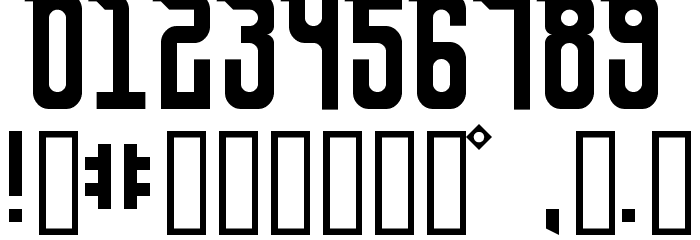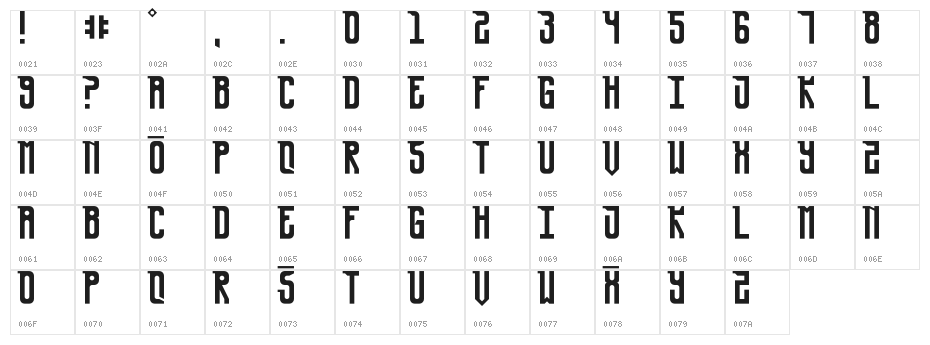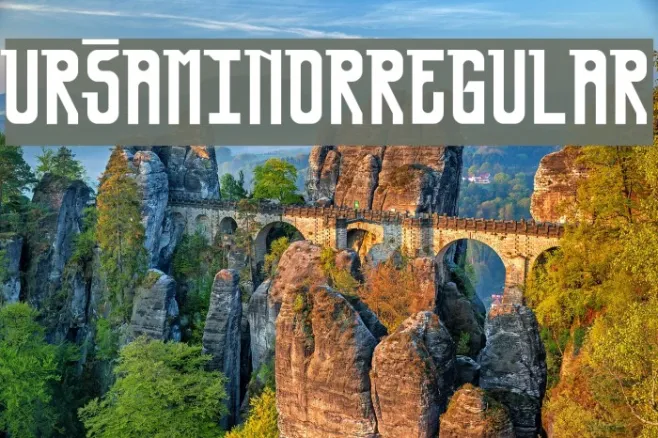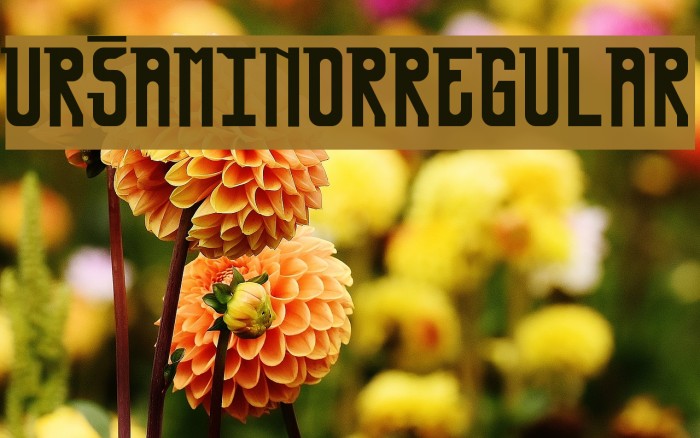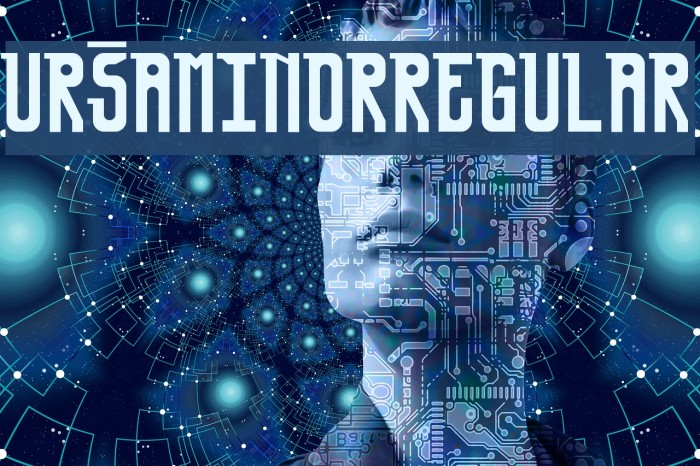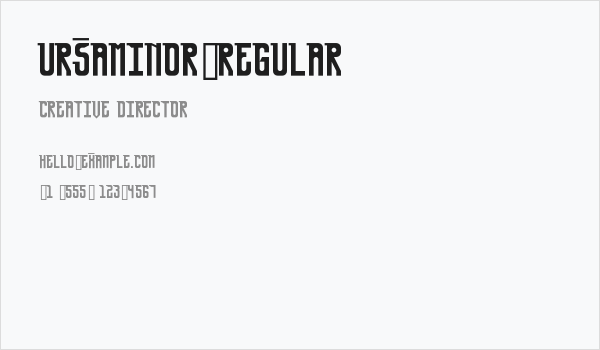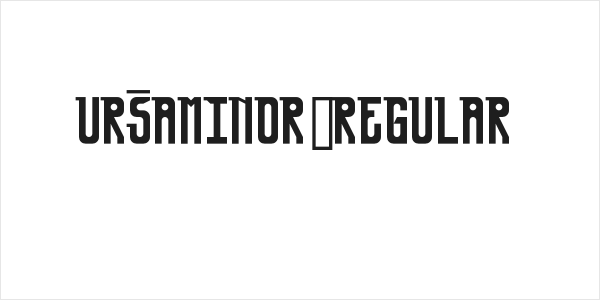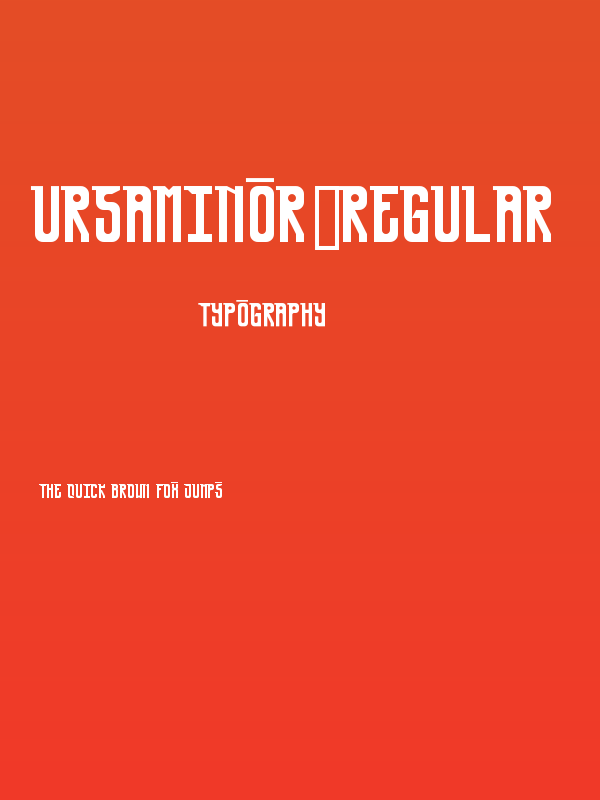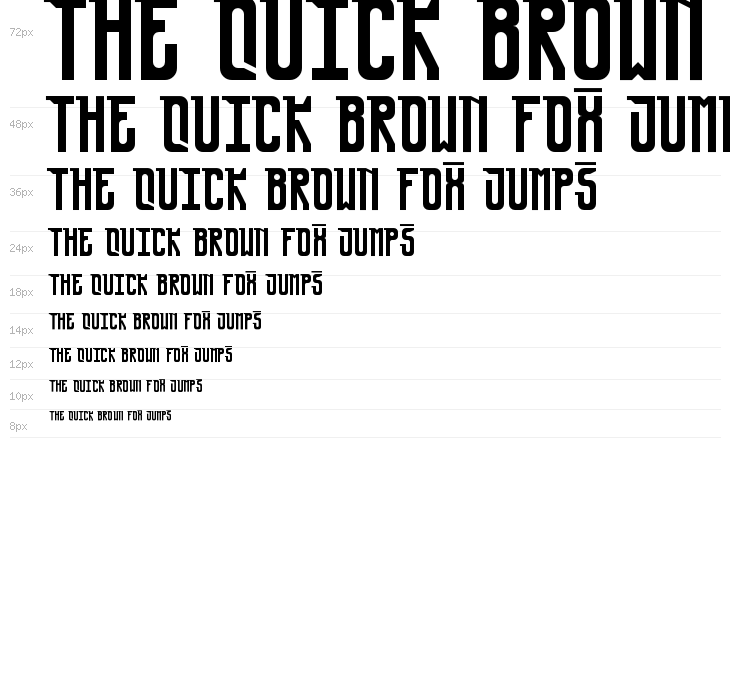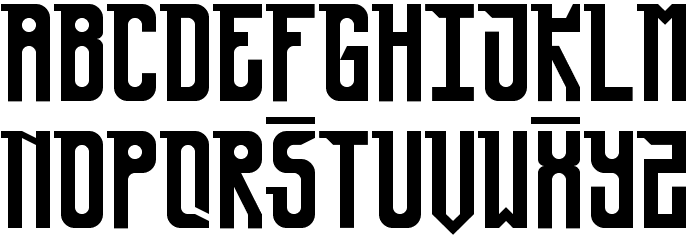
UrsaMinor-Regular Font
UrsaMinor-Regular Description
This font features a bold, geometric design with strong, angular lines and a modern aesthetic. The uppercase letters are characterized by their uniform height and width, creating a cohesive and structured appearance. The lowercase letters maintain the same geometric style, ensuring consistency throughout the typeface. The numerals are equally bold and geometric, matching the overall style of the alphabet. Special characters are included, designed to complement the bold and structured nature of the font. The overall look is striking and contemporary, making it suitable for a variety of design applications.
| Proposed Projects | Ideal for branding, posters, headlines, and any project requiring a strong visual impact. |